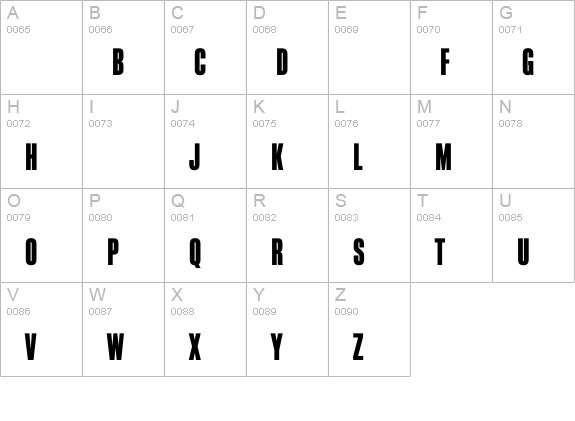
BlockGothicExtraBoldExtraCond Font Details
BlockGothicExtraBoldExtraCond is a modern and striking font that demands attention with its bold and condensed design. This typeface exudes a sense of strength and power, making it perfect for headlines, posters, and other display purposes. The sharp edges and geometric shapes of this font give it a futuristic and edgy feel that is sure to make your designs stand out. What's even better is that BlockGothicExtraBoldExtraCond is available for free download at FontsMarket.com. This means you can easily access this eye-catching font and use it in your projects without any cost. Don't miss out on the opportunity to enhance your designs with this unique and impactful typeface. Download BlockGothicExtraBoldExtraCond today and unleash its bold character in your creative work.